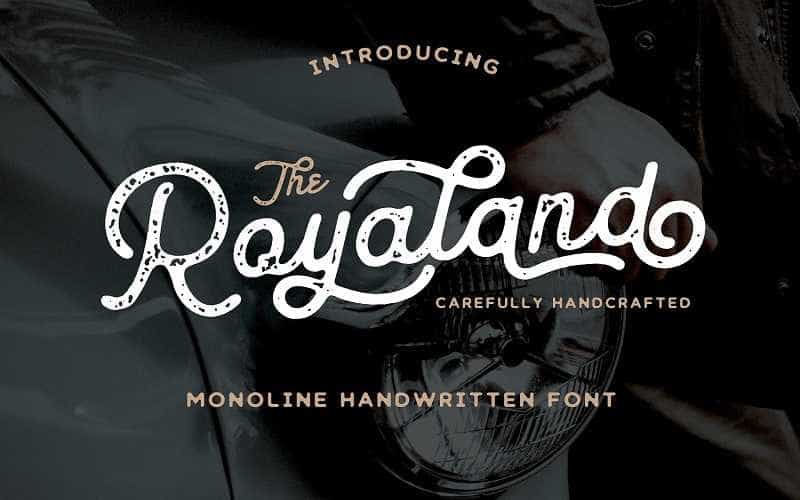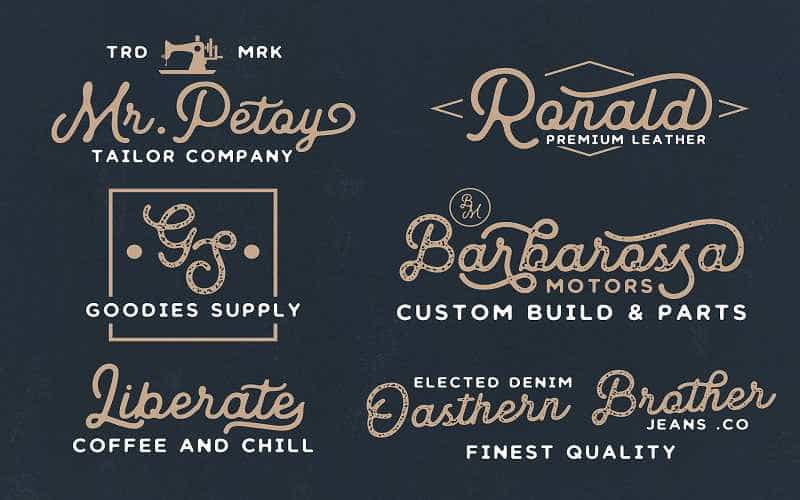
Discover Royaland Script Font, part of the Brush collection—a versatile and unique font perfect for adding a personal touch to your projects. Download it for free and enjoy crafting designs with style, from invitations to social media posts. This font is available exclusively for personal use, giving you the freedom to create without limits. Unlock your creativity with Royaland Script Font today!
We would like to present our new unique product – Royaland Font. The originally designed font is the Royalance font with only the bind dots remaining, in two variations – Clean and Rough (stamped). In such a manner and style, The Royaland Font will have that touched of retro look to it. But as I said earlier, the advantage of using the RoyalFont is that it has a standart Multilingual Support like any other font.